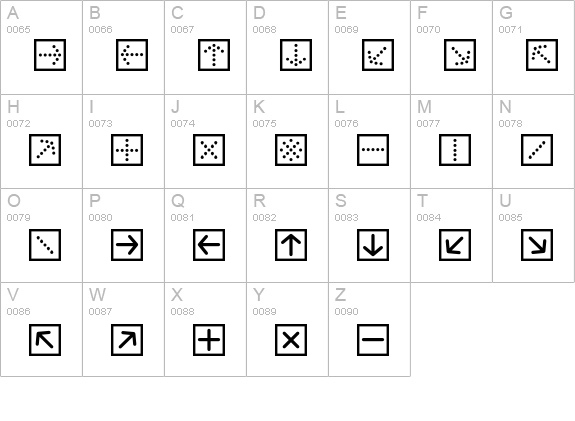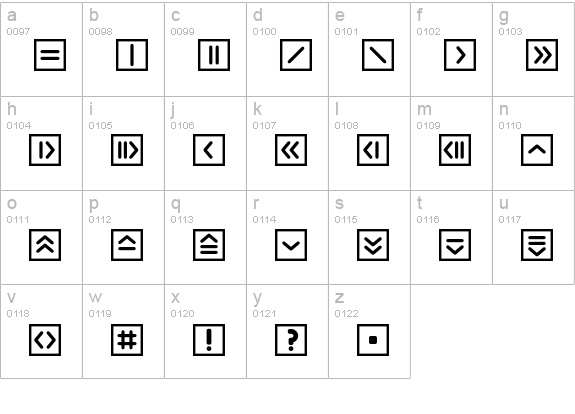
ButtonBonus-SquarePositive Font Details
ButtonBonus-SquarePositive font is a modern and stylish typeface that exudes positivity and creativity. Its bold square shapes and clean lines make it perfect for creating eye-catching designs and attention-grabbing headlines. This versatile font is suitable for a wide range of projects, from branding and advertising to web design and social media graphics. And the best part is, ButtonBonus-SquarePositive font is available for free download at FontsMarket.com! Whether you're a seasoned designer looking to add a fresh touch to your projects or a beginner exploring different fonts, this font is a must-have in your collection. Don't miss out on the opportunity to enhance your designs with this unique and trendy typeface. Download ButtonBonus-SquarePositive font today and let your creativity shine!